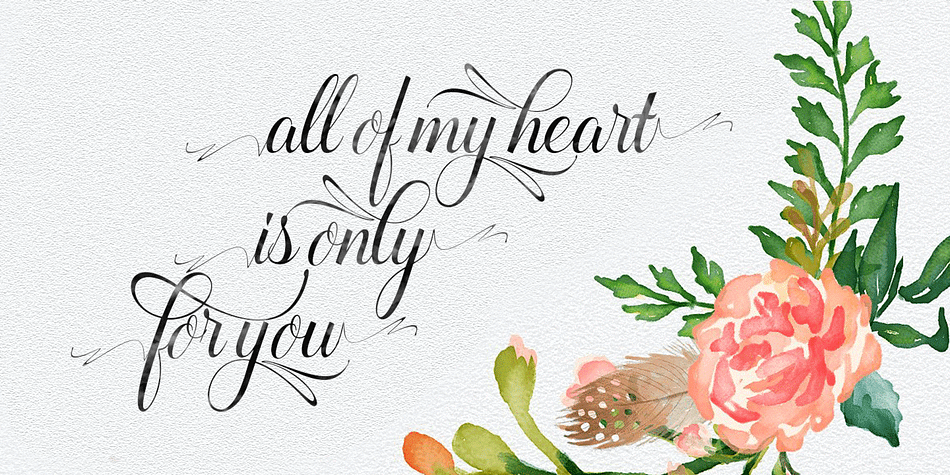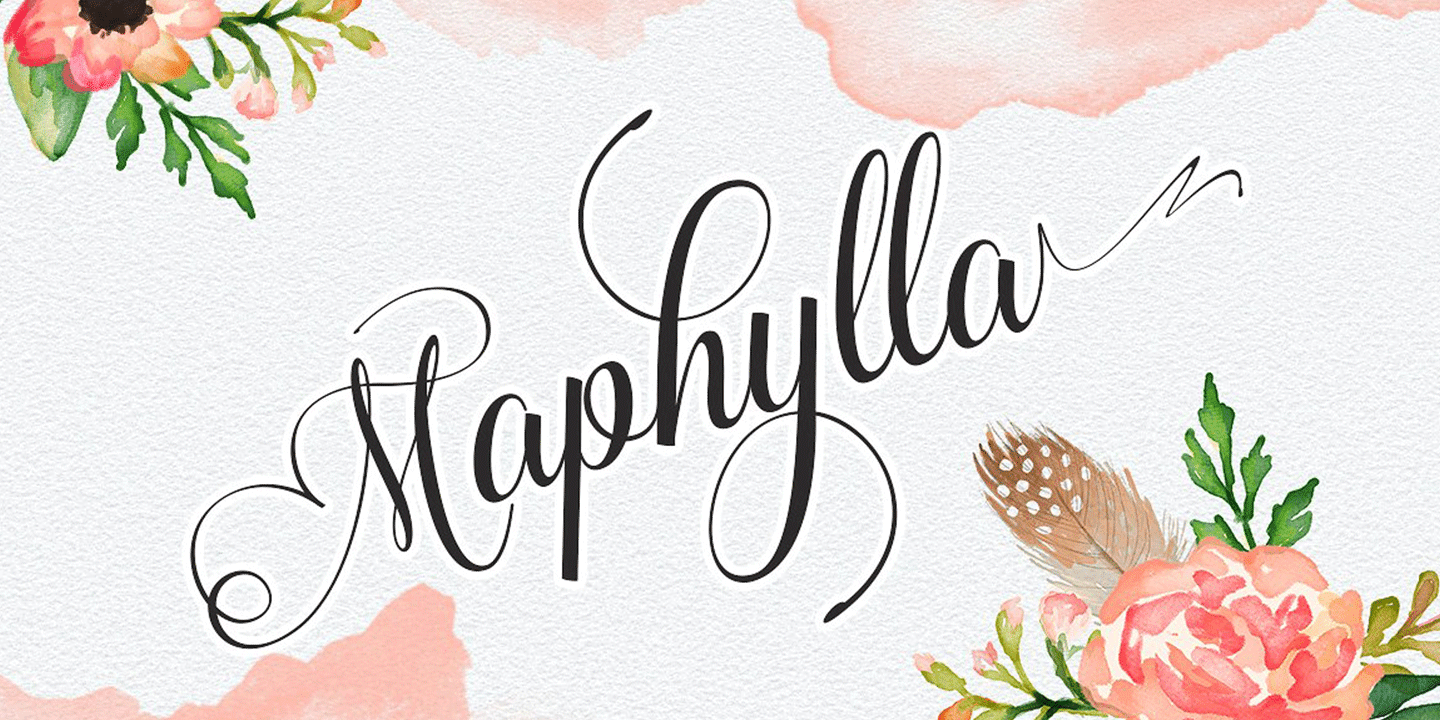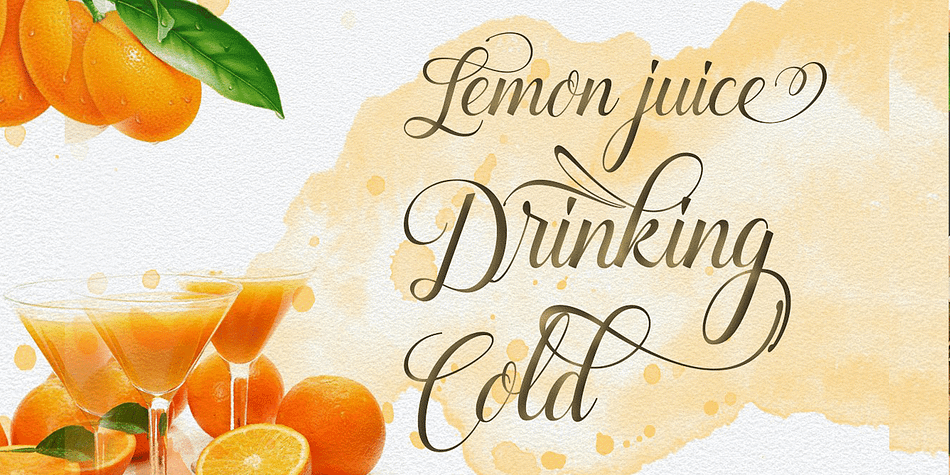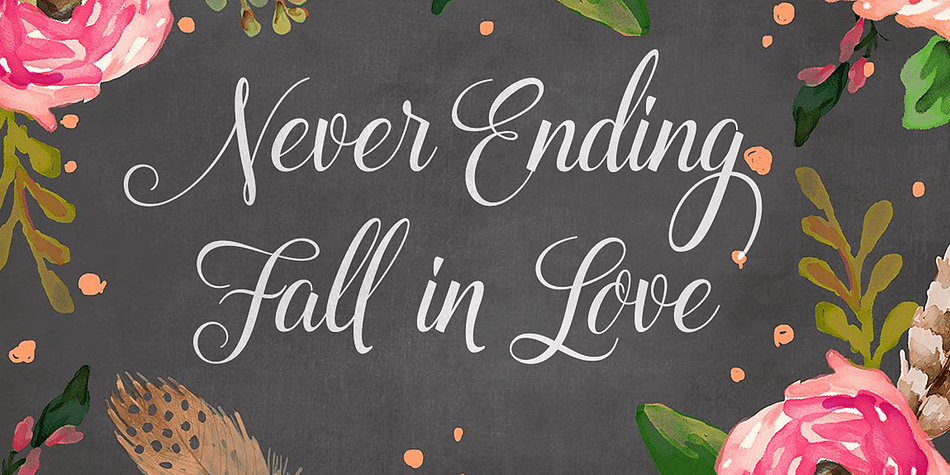
Maplylla
Designed by Roiyani Teungku, Maplylla is a modern calligraphy and script font published by Groens.
Maplylla is a script font, beautiful and unique. It is a model of modern calligraphy typefaces, in combination with a calligraphy writing style. In total, there are 378 glyphs.
Features include:
Contextual Alternates
Standart ligatures
Discretionary ligatures
Stylistic Alternates
Stylistic sets
initial form
Can be used for various purposes.such as headings, logos, wedding invitations, t-shirts, letterhead, signage, labels, news, posters, badges etc. To enable the OpenType Stylistic alternates, you need a program that supports OpenType features such as Adobe Illustrator CS, Adobe Indesign & CorelDraw X6-X7.